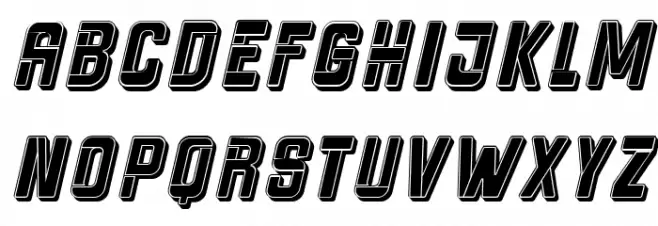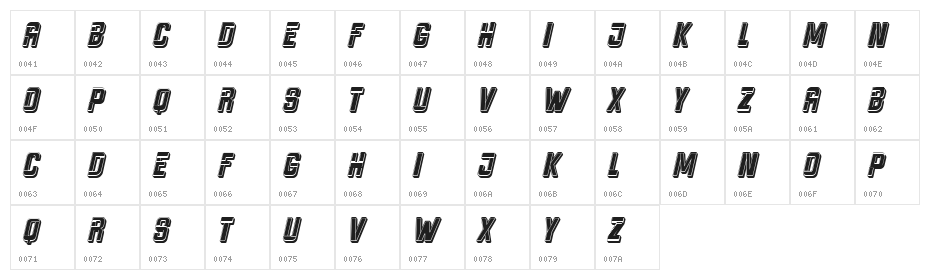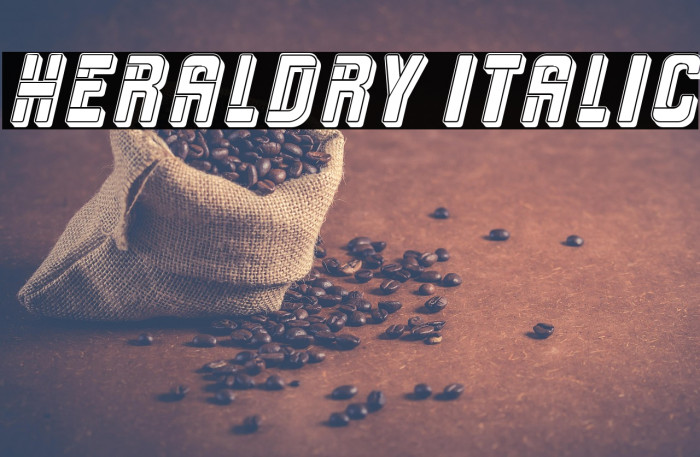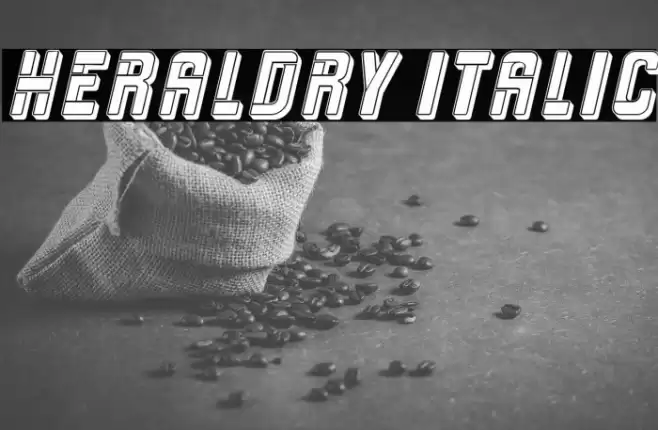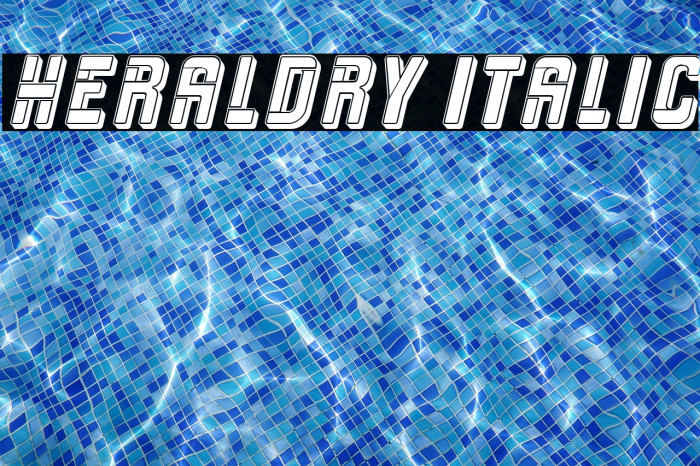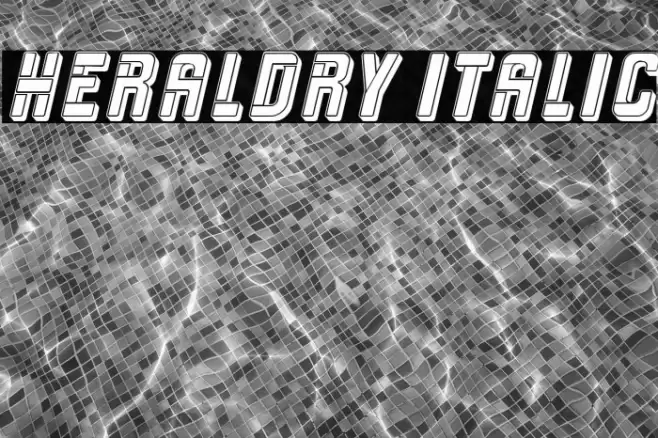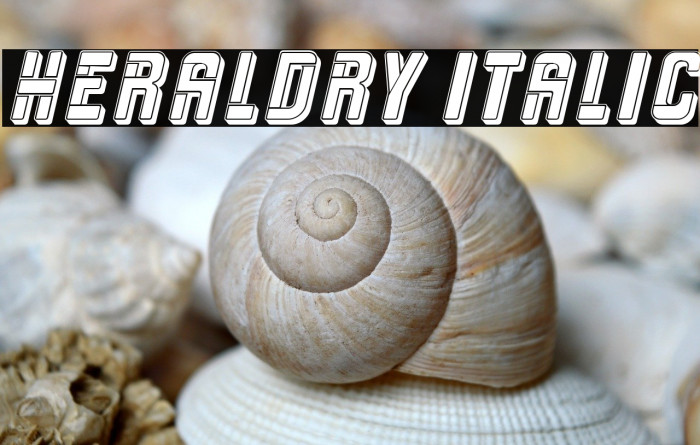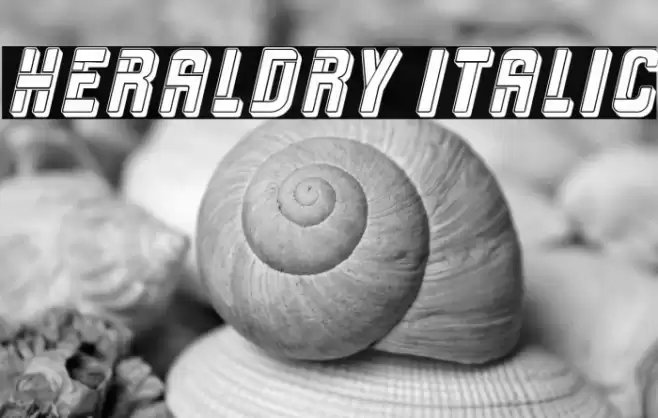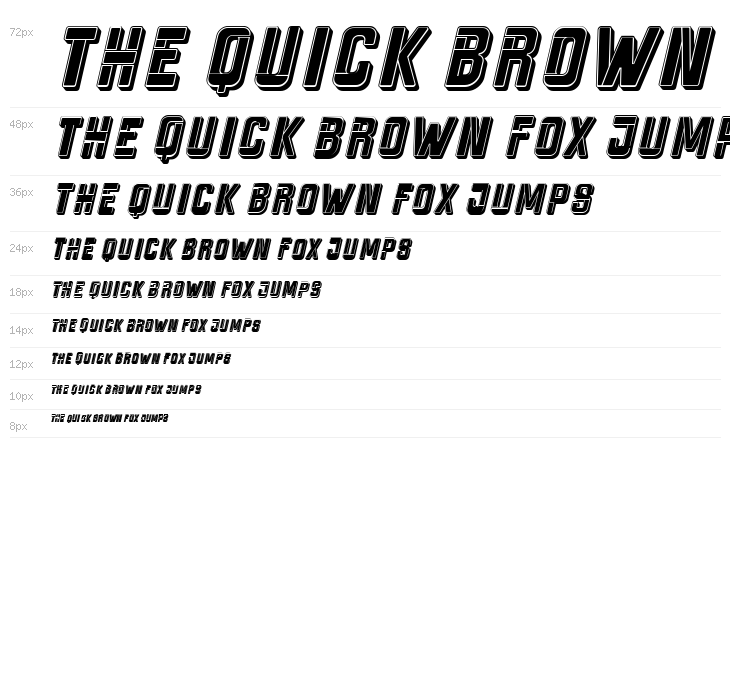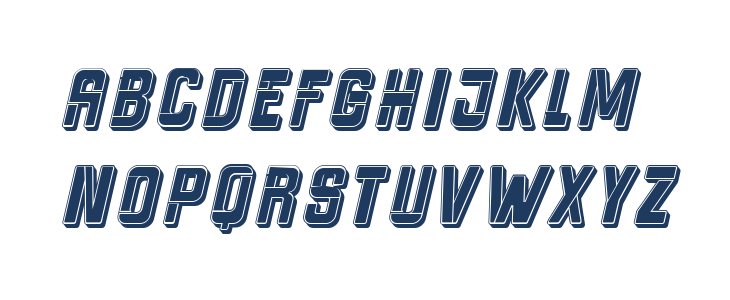
Heraldry Italic Font
Heraldry Italic Description
This font features a bold, italicized style with a strong, impactful presence. The characters are outlined with a thick black shadow, giving them a three-dimensional effect. The uppercase letters are uniformly designed with sharp angles and clean lines, creating a sense of modernity and strength. The italic slant adds a dynamic and forward-moving energy to the text. The font's boldness and shadowing make it highly visible and attention-grabbing, suitable for designs that require a strong visual impact.